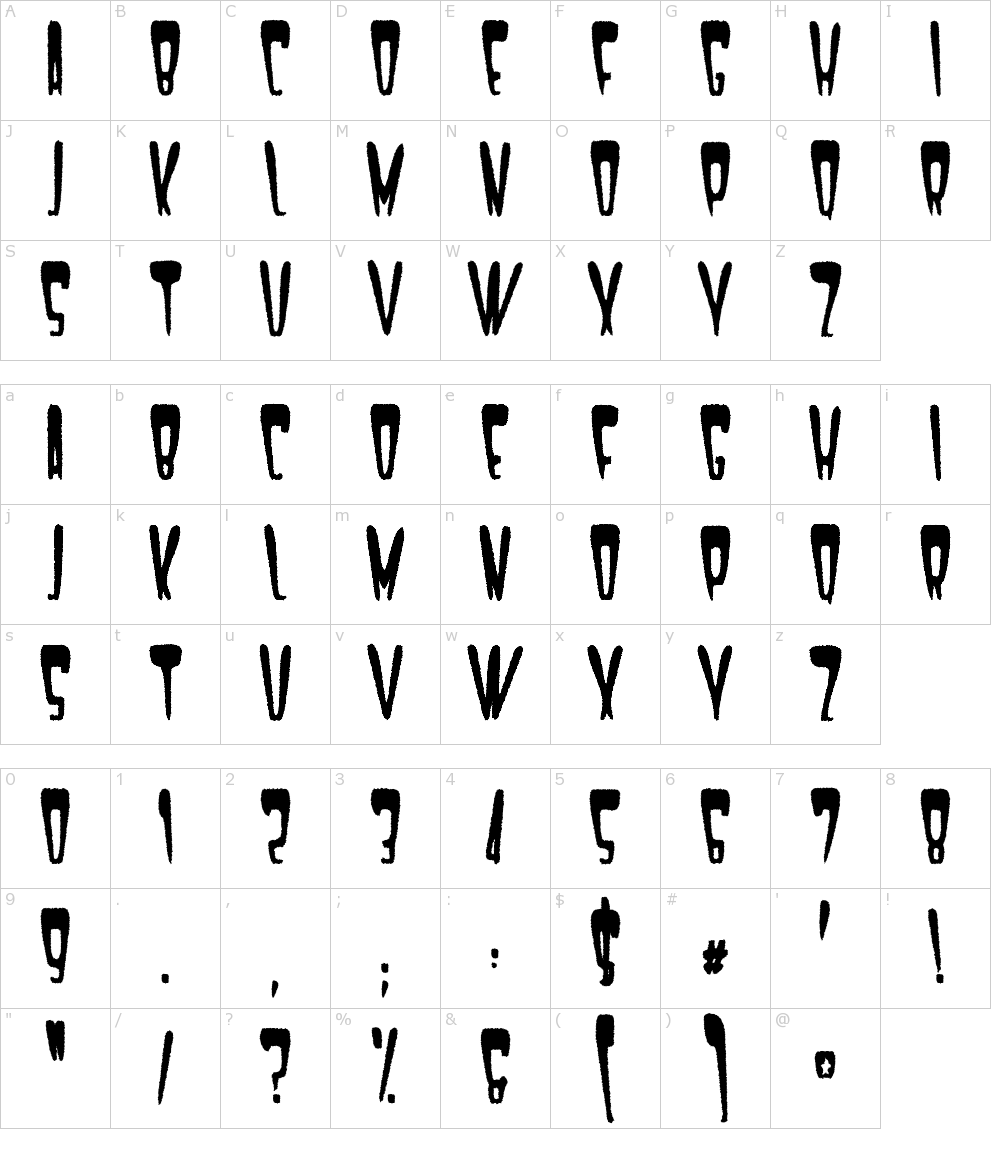
Who Asks Satan Font Generator. The text generators section features an array of online tools for you to create and edit text graphics easily online; Use the text generator tool below to preview who asks satan font, and create appealing text graphics with different colors and hundreds.
This font has been viewed 77 times and the font file. The designer of who asks satan font has shown spraying and hitting a sharp object such as glass or a knife in a really believable way. And includes uppercase and lowercase letters, numbers and punctuation.
Mr Satan Is A Simple Font That Has Stylistic Standards, Stylistic Alternatives.